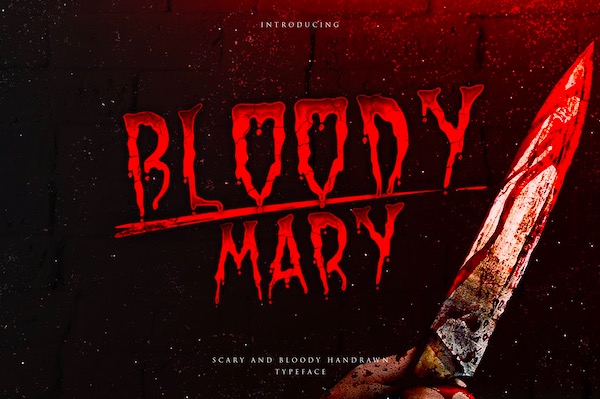
Bloody Mary font is a fancy display typeface that makes many people have a horror feel. This fancy font deserves a welcome in a variety of design styles.
Bloody Mary Fancy Font